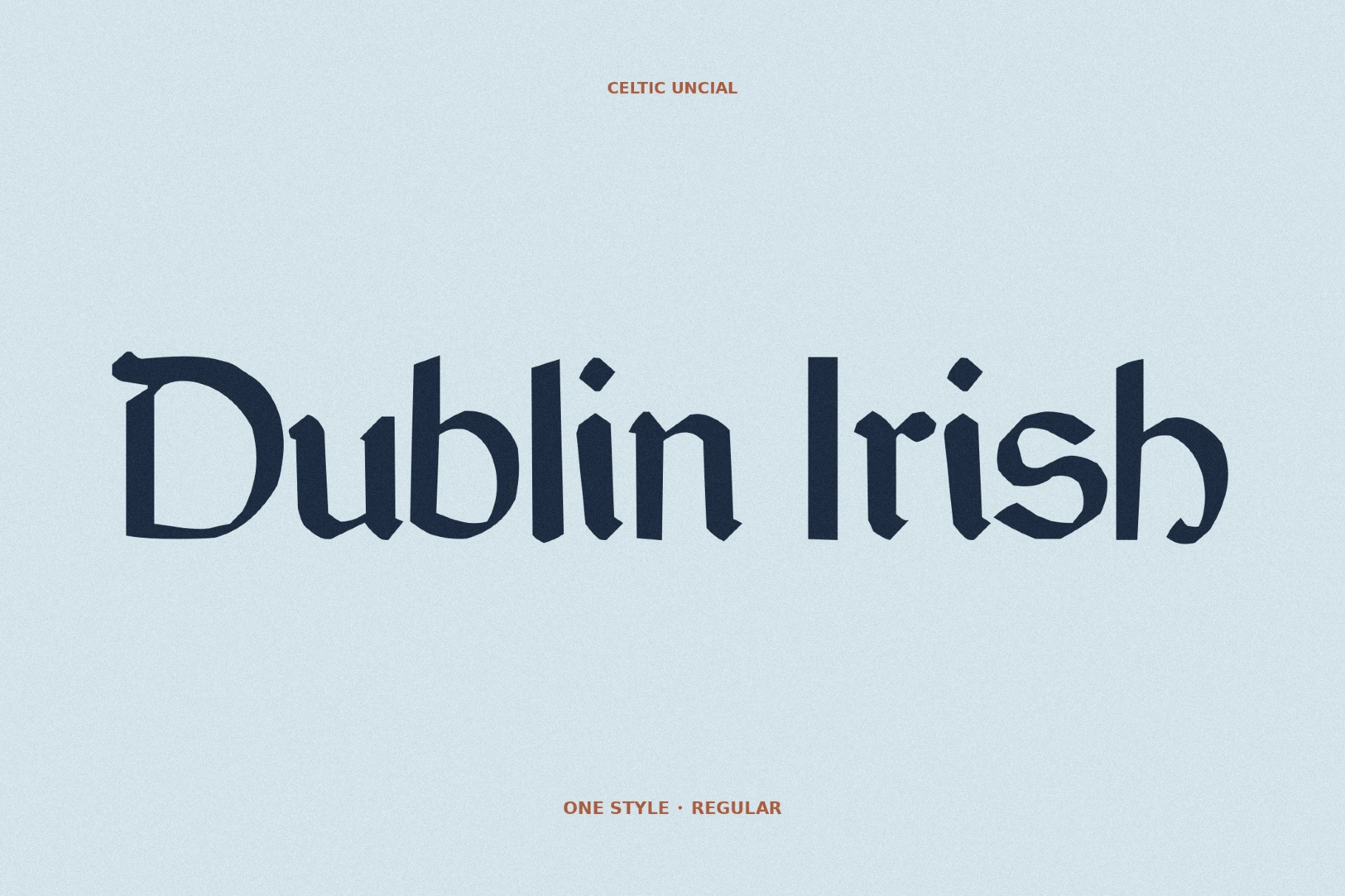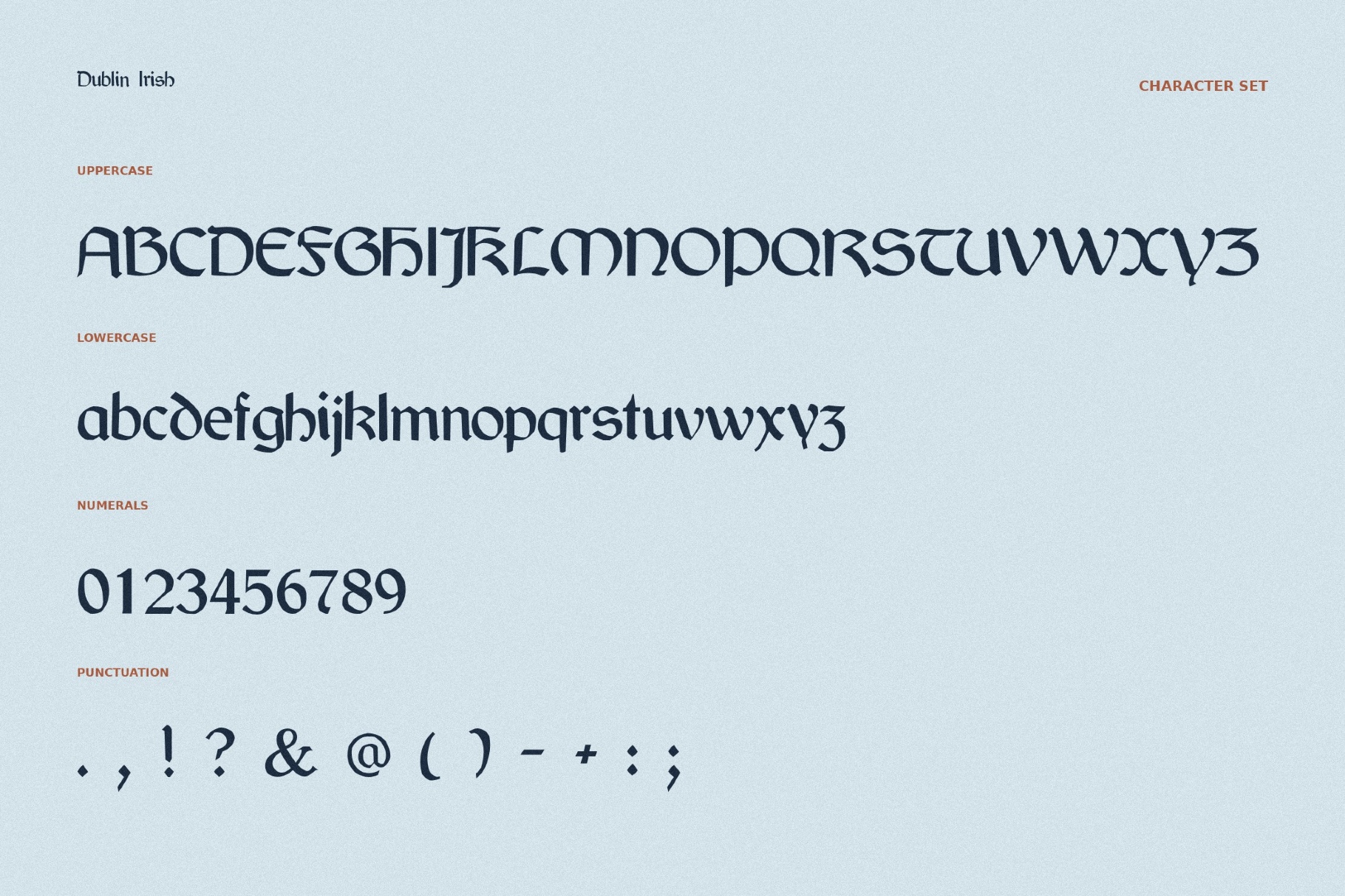
Dublin Irish Font
Dublin Irish features Gaelic letterforms with rounded uncial curves and a compact manuscript rhythm, like in Irish pub signs, Celtic Gospel pages, and folk music sleeves. Its cultural warmth suits projects built around tradition, craft, and regional storytelling: brewery labels, St. Patrick’s Day graphics, book covers, travel branding, museum materials, restaurant menus, ceremonial stationery, and heritage identity systems.
- uppercase and lowercase letters;
- numbers, punctuation, and symbols;
- multilingual support across the extended Latin scripts;
- ligatures.